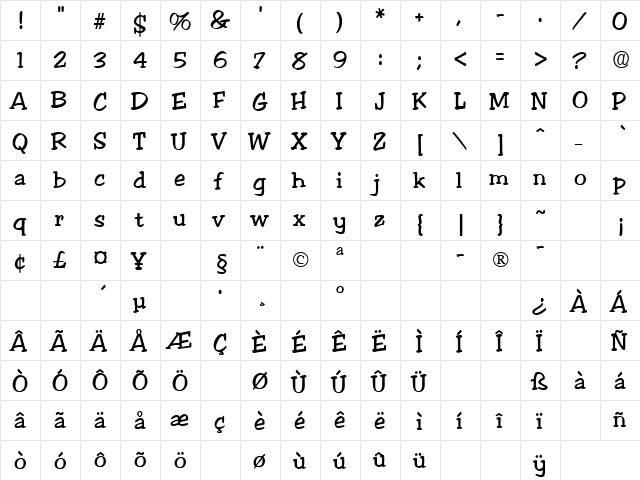
Sherborn Regular
Design Context for Sherborn Typeface
Sherborn takes a measured approach to typography — its balanced proportions and neutral character make it a reliable workhorse for both digital and print work.